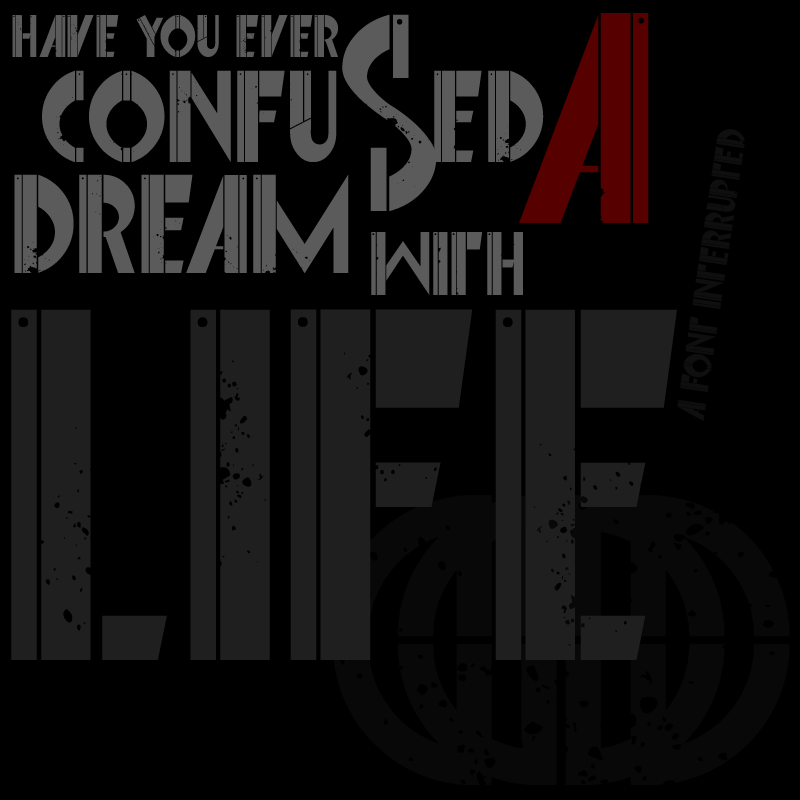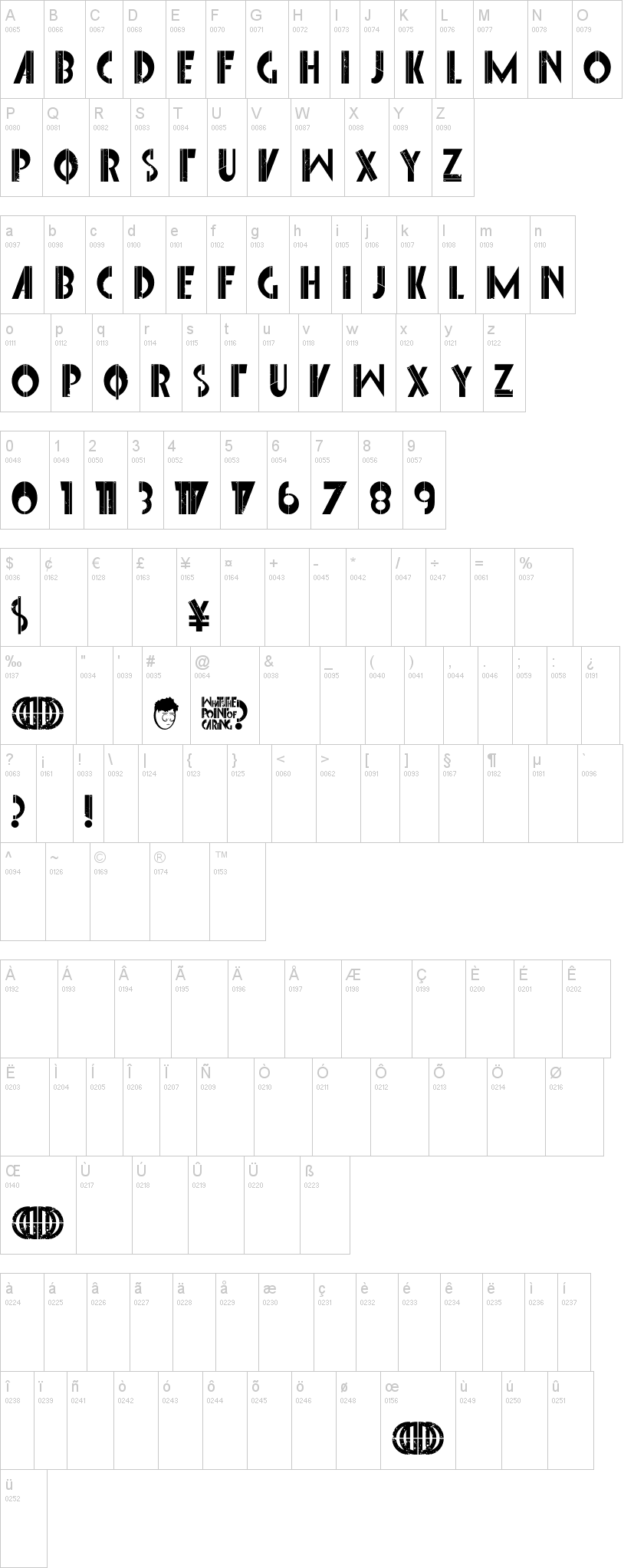
A Razor Sharp font for your magical font suitcase. This is a super sharp number and letter set for your titillating titling needs. Maybe you can use it for a flyer for your bands next performance? Maybe you like to write cryptic messages on your social networking thumbnail images? This font is definitely a permanent solution to your short term problem.